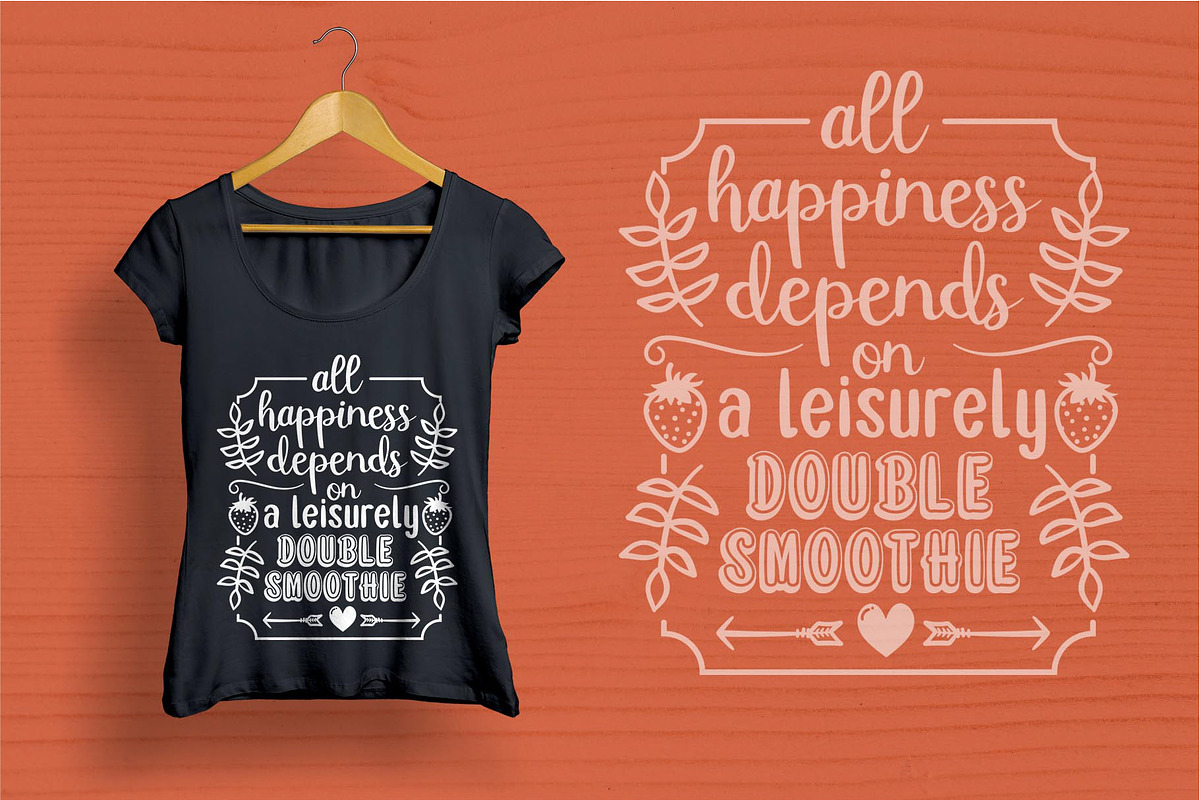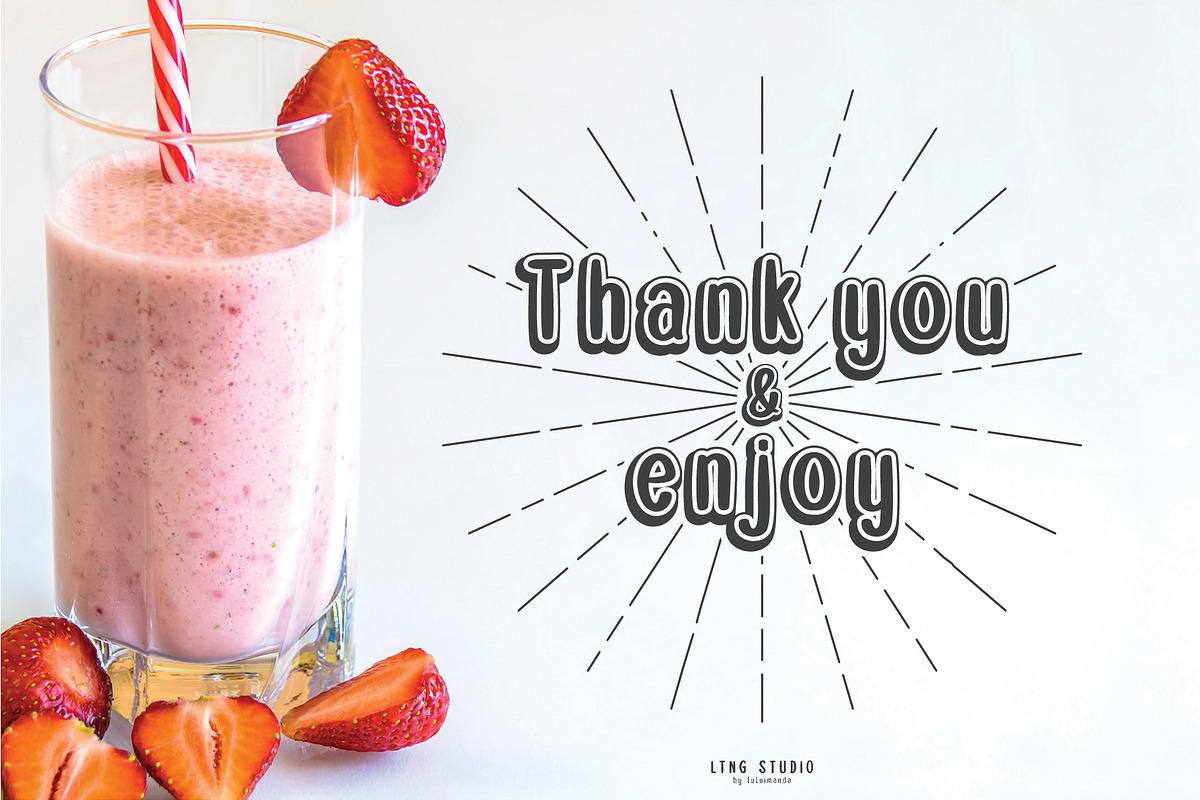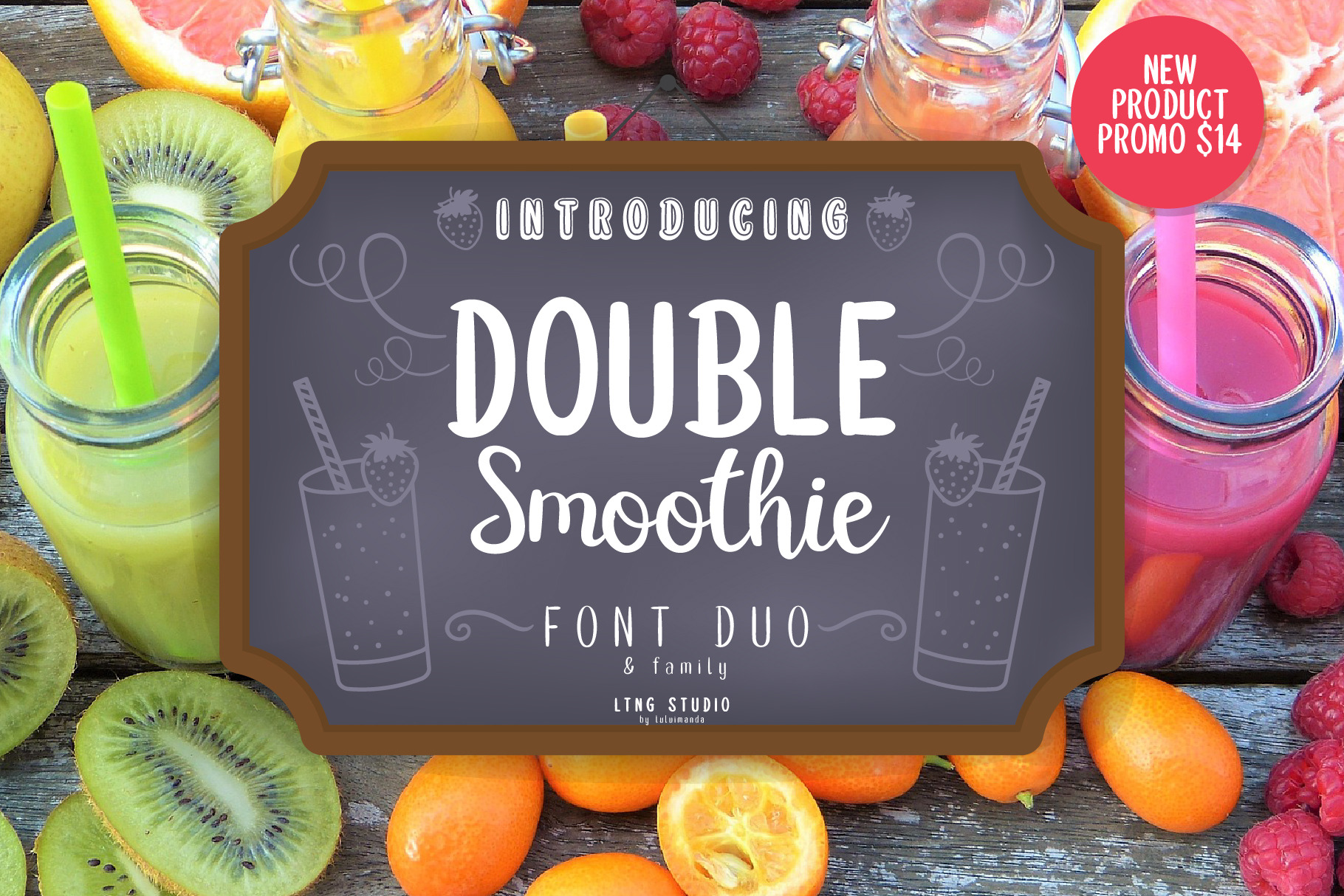
Double smoothie font duo & family
Introducing Double Smoothie… A fun font duo with family and bonus doodles. Double smoothie is hand drawn brushed typeface, with smooth stroke and cute shape, is perfect for any kind of design such us wedding, greeting cards, fashion and etc.